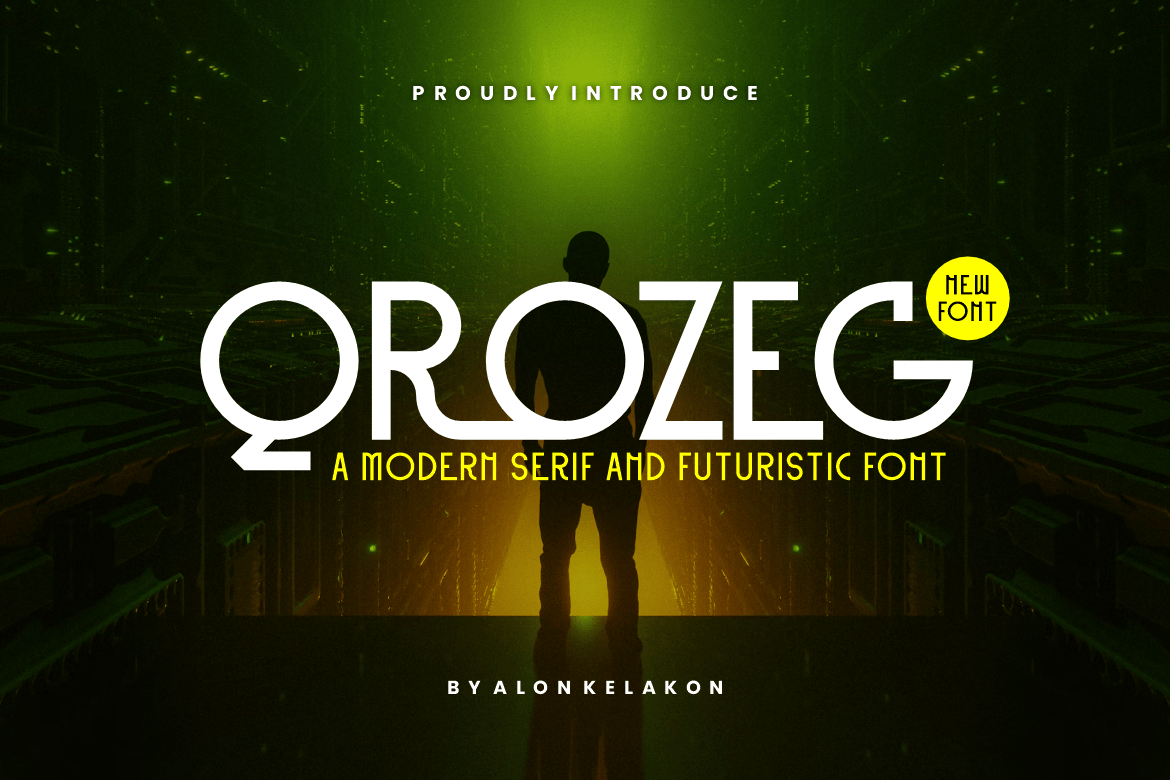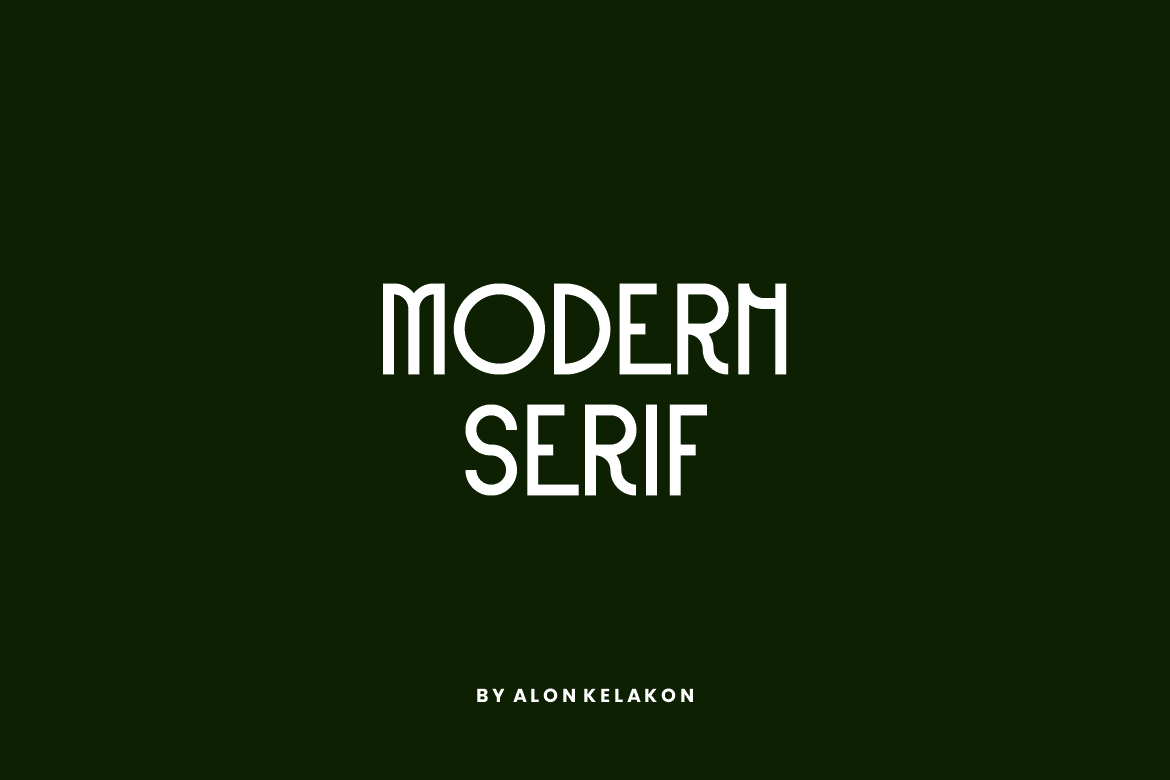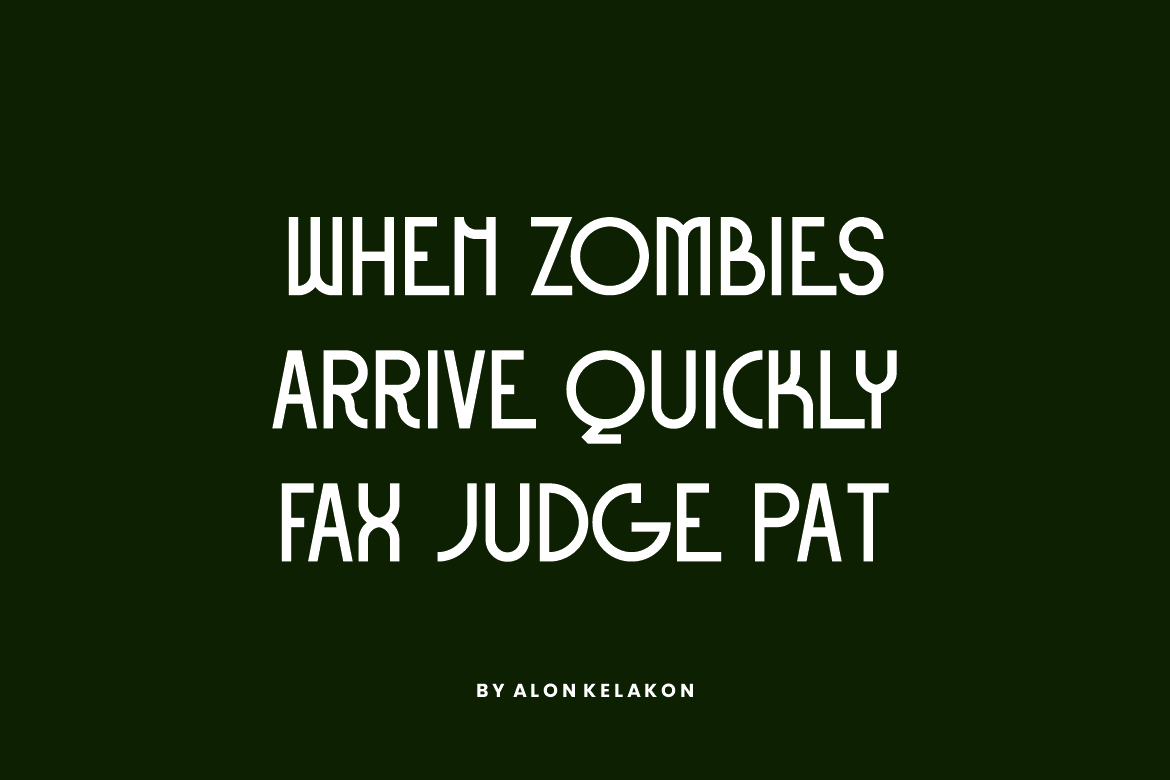
Qrozeg Modern Serif Font
Qrozeg Modern Serif Font Font is unique . Ready to use for your design like labeling, movie sceen, poster, movie title, gigs, album covers, logos, and much more.